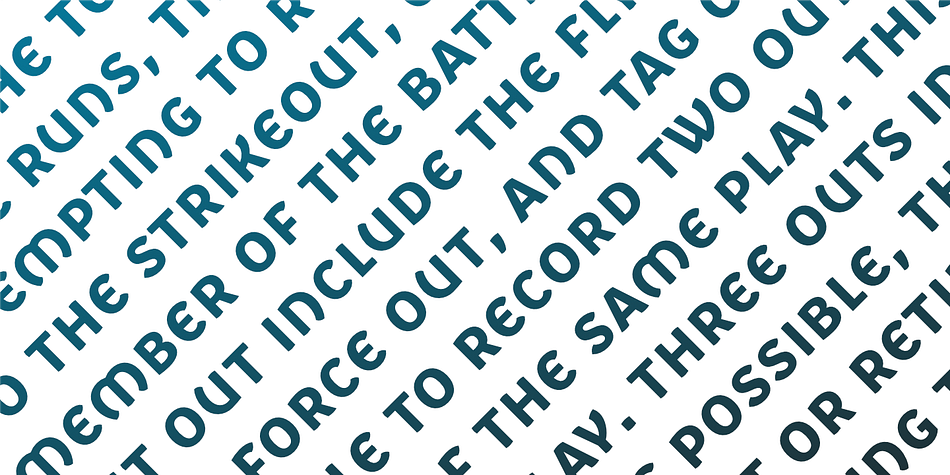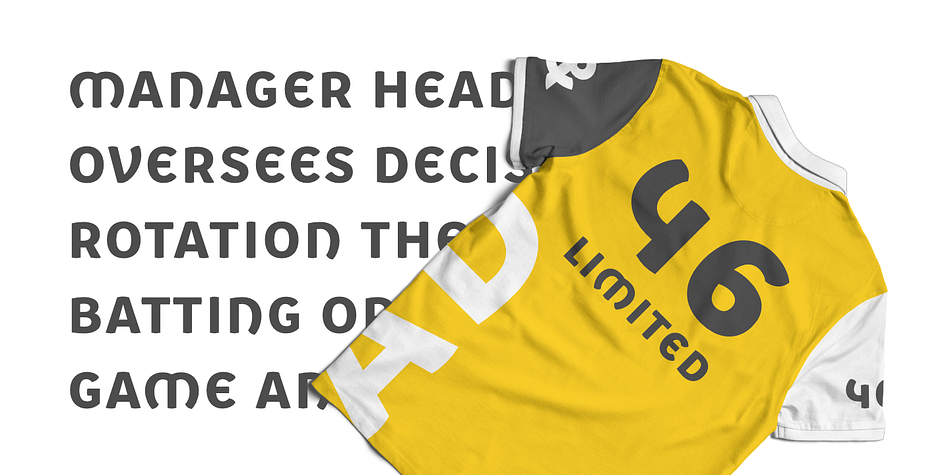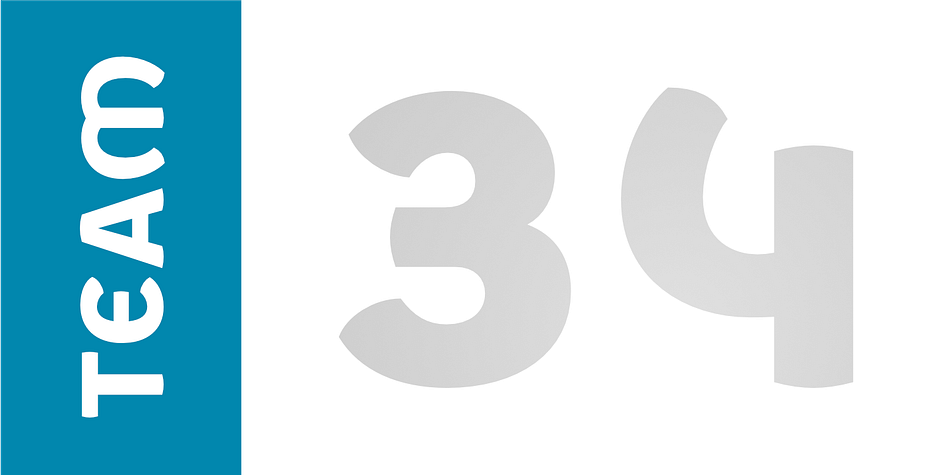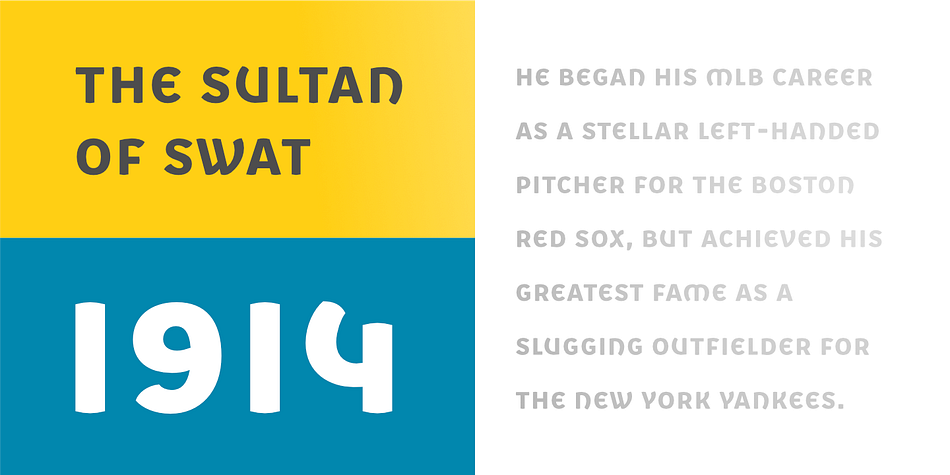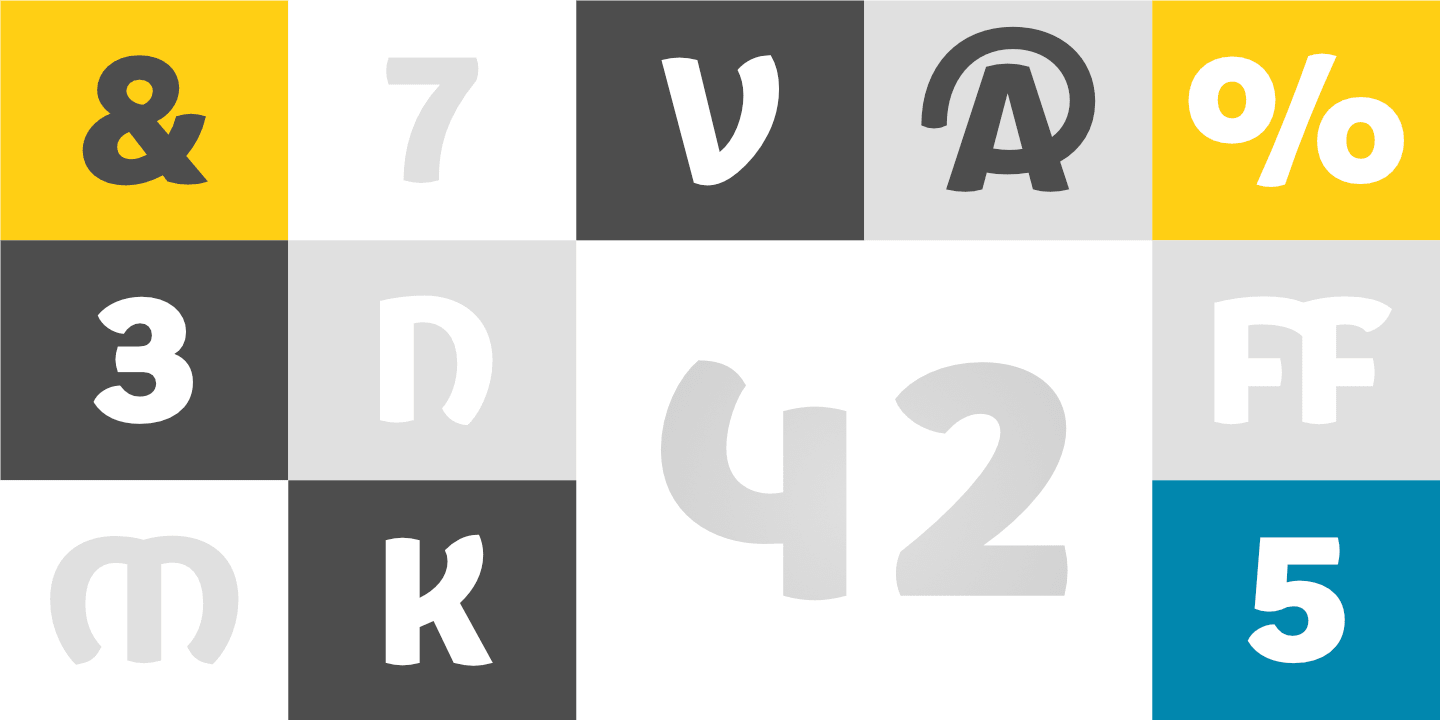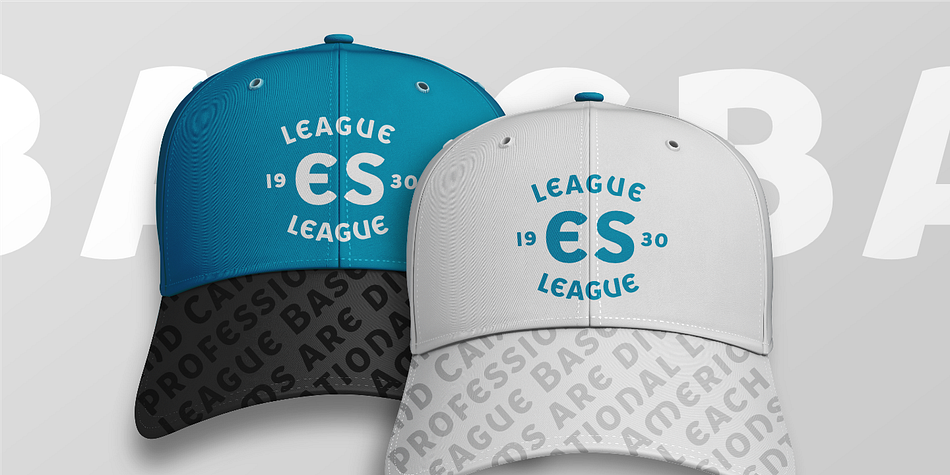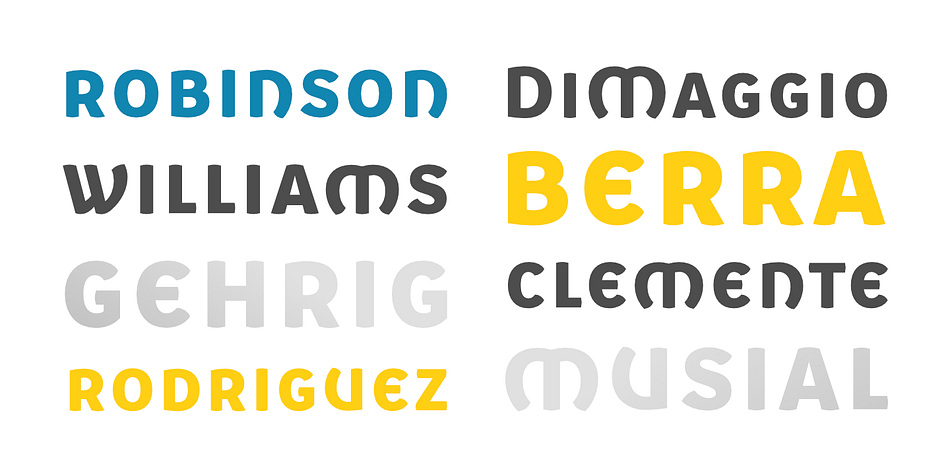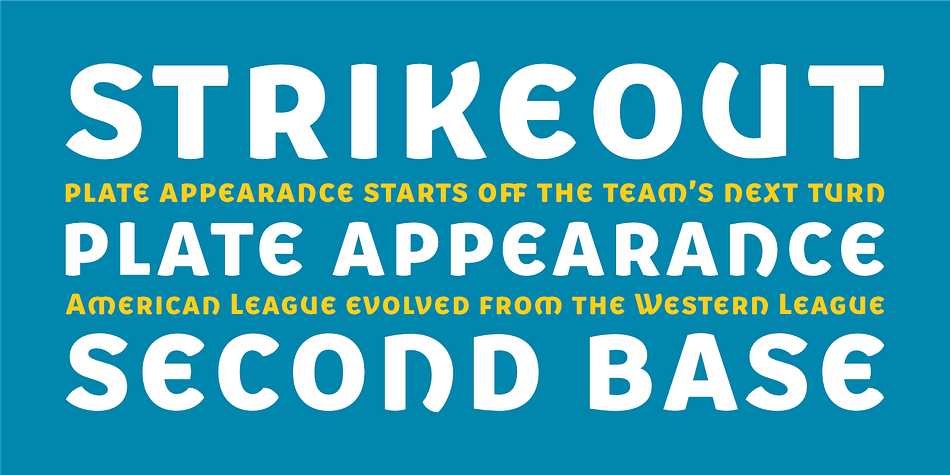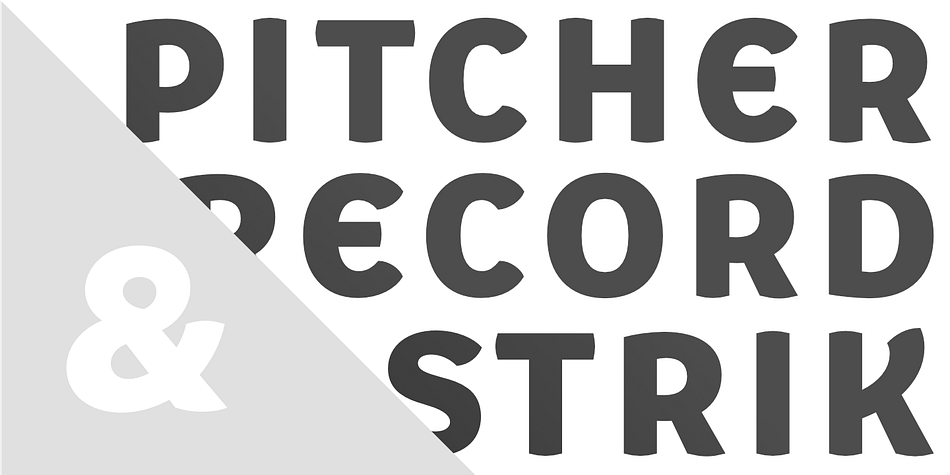
Designed by Marin Šantić, Bovid is a display sans font published by Type Fleet.
BOVID
ready to clash
Following the ancient Adriatic history and natural shapes of the ram horns, Bovid typeface connects sports and tradition in a fearless and reckless way. It empowers players as soon as they put on their jerseys, making them ready to clash for the highest score.
Bovid typeface has low contrast and high legibility with priority on numerals. It has capital letters in two sizes and is suitable for sport jerseys, posters, brochures, flags and tickets.